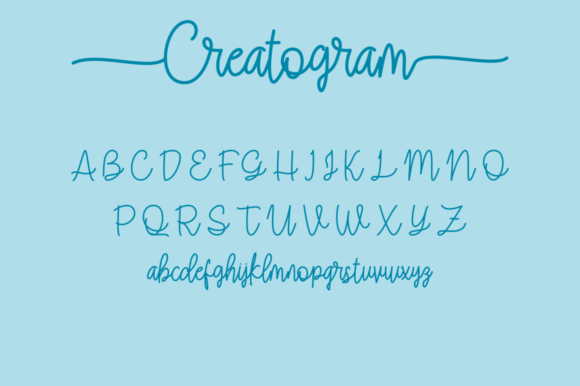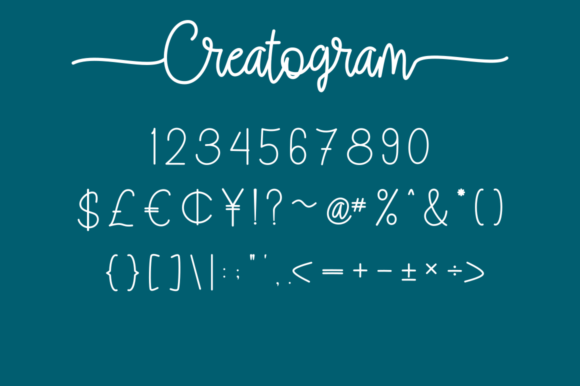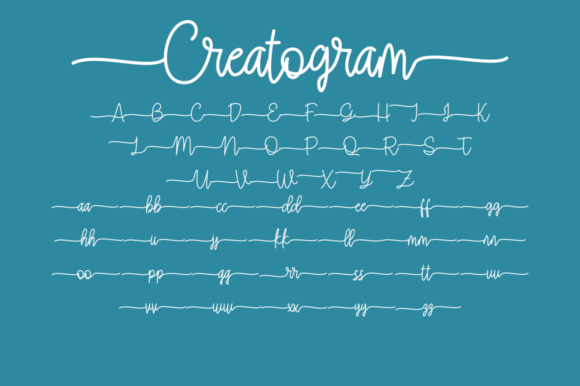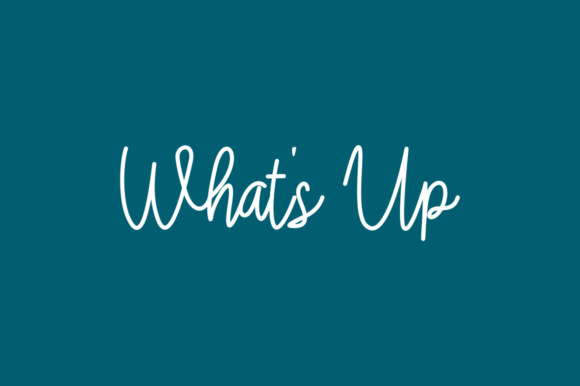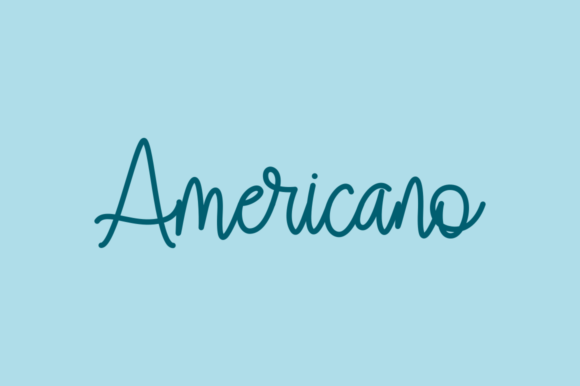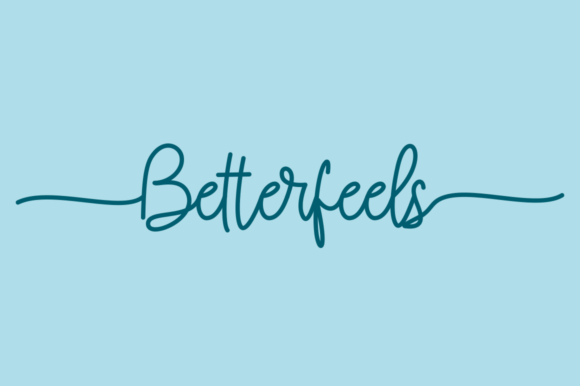
Creatogram Font: Elevate Your Designs with a Vintage Flair
In the realm of typography, few fonts manage to capture the essence of vintage elegance while offering versatility for modern designs. Creatogram Font stands out as a beacon of creativity, blending beauty, balance, and a touch of nostalgia. This article delves into the world of Creatogram, exploring its features, benefits, and the myriad ways it can enhance your design projects.
The Essence of Creatogram Font
Creatogram is a beautiful, well-balanced, and vintage-styled script font that has been making waves in the design community. Its aesthetic is reminiscent of classic calligraphy, yet it boasts a modern sensibility that makes it incredibly versatile. Whether you’re crafting elegant wedding invitations, sophisticated branding materials, or creative digital content, Creatogram brings a level of sophistication that’s hard to match.
One of the standout features of Creatogram Font is its PUA (Private Use Area) encoding. This technical aspect allows designers to access all the glyphs and swashes with ease, offering unparalleled flexibility. PUA encoding means that you can unlock the full creative potential of Creatogram, experimenting with a wide range of design elements without the hassle of complicated font management.
The versatility of Creatogram is one of its most compelling attributes. This font isn’t just a typeface; it’s a design tool that can adapt to various styles and themes. From romantic and whimsical to professional and sleek, Creatogram can help you achieve the desired mood and aesthetic for your project. Its ability to blend into different contexts makes it a valuable asset for designers and crafters looking to elevate their work.
Applications of Creatogram Font
Creatogram’s applications are as diverse as its design possibilities. Here are a few ways you can utilize this stunning font:
- Wedding and Event Stationery: Create breathtaking wedding invitations, save-the-date cards, and event posters that set the tone for an unforgettable celebration.
- Branding and Packaging: Enhance your brand’s visual identity with Creatogram’s elegant and professional look, perfect for logos, business cards, and product packaging.
- Digital Content: Elevate your blog posts, social media graphics, and website headers with a touch of vintage charm and modern sophistication.
- Crafting and DIY Projects: Add a personal touch to your crafting and DIY projects, such as handmade cards, scrapbooking, and iron-on designs.
Why Choose Creatogram Font?
With so many fonts available, why should Creatogram be your go-to choice? Here are a few reasons:
- Unique Aesthetic: Creatogram offers a distinctive vintage style that’s both timeless and on-trend.
- Ease of Use: Thanks to PUA encoding, using Creatogram is straightforward, even for intricate designs.
- High Versatility: This font can be adapted to a wide range of projects, making it a valuable addition to your design toolkit.
- Quality and Craftsmanship: Creatogram is crafted with attention to detail, ensuring that it meets the highest standards of typographic excellence.
Creatogram Font is more than just a typeface; it’s a gateway to creating spectacular designs that captivate and inspire. Its vintage charm, combined with modern versatility and ease of use, makes it an indispensable resource for designers and crafters alike. Whether you’re looking to add a touch of elegance to your branding, create memorable event stationery, or simply explore new creative horizons, Creatogram is the perfect companion on your design journey.